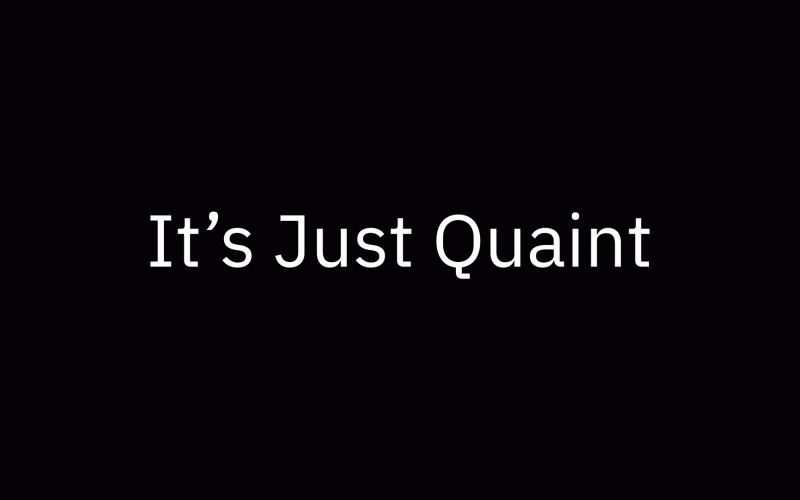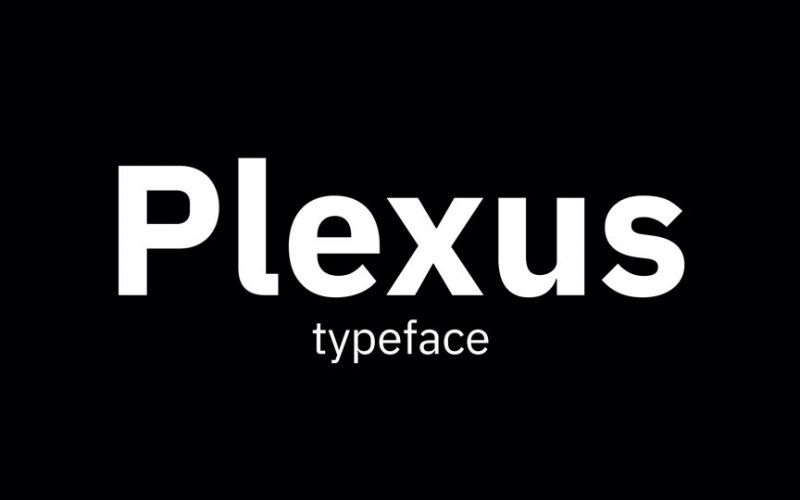
Plexus Sans Font Family
Plexus is IBM Plex an open source font for the rest of Us
Derived from IBM Plex, Plexus neutralizes some of the most unique brand-specific characters of IBM Plex.
Designer Name: | Joshua Smith |